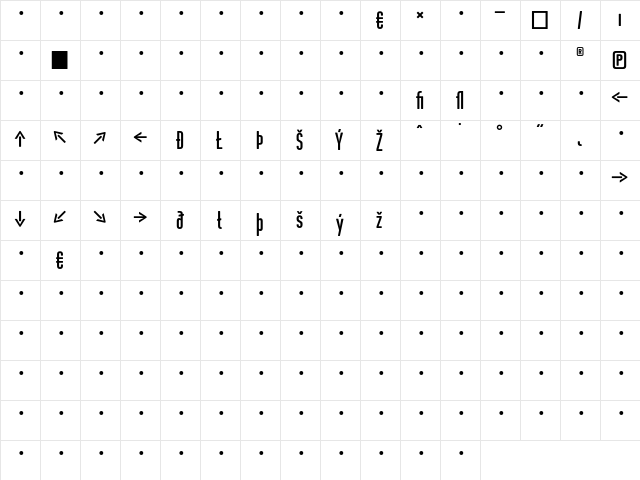
CstBerlinEast MediumExp Font Preview
CstBerlinEast MediumExp
Design Context for CstBerlinEast Typeface
CstBerlinEast takes a measured approach to typography — its balanced proportions and neutral character make it a reliable workhorse for both digital and print work.